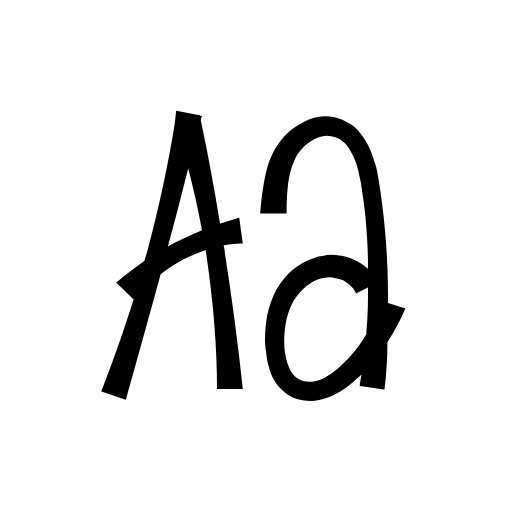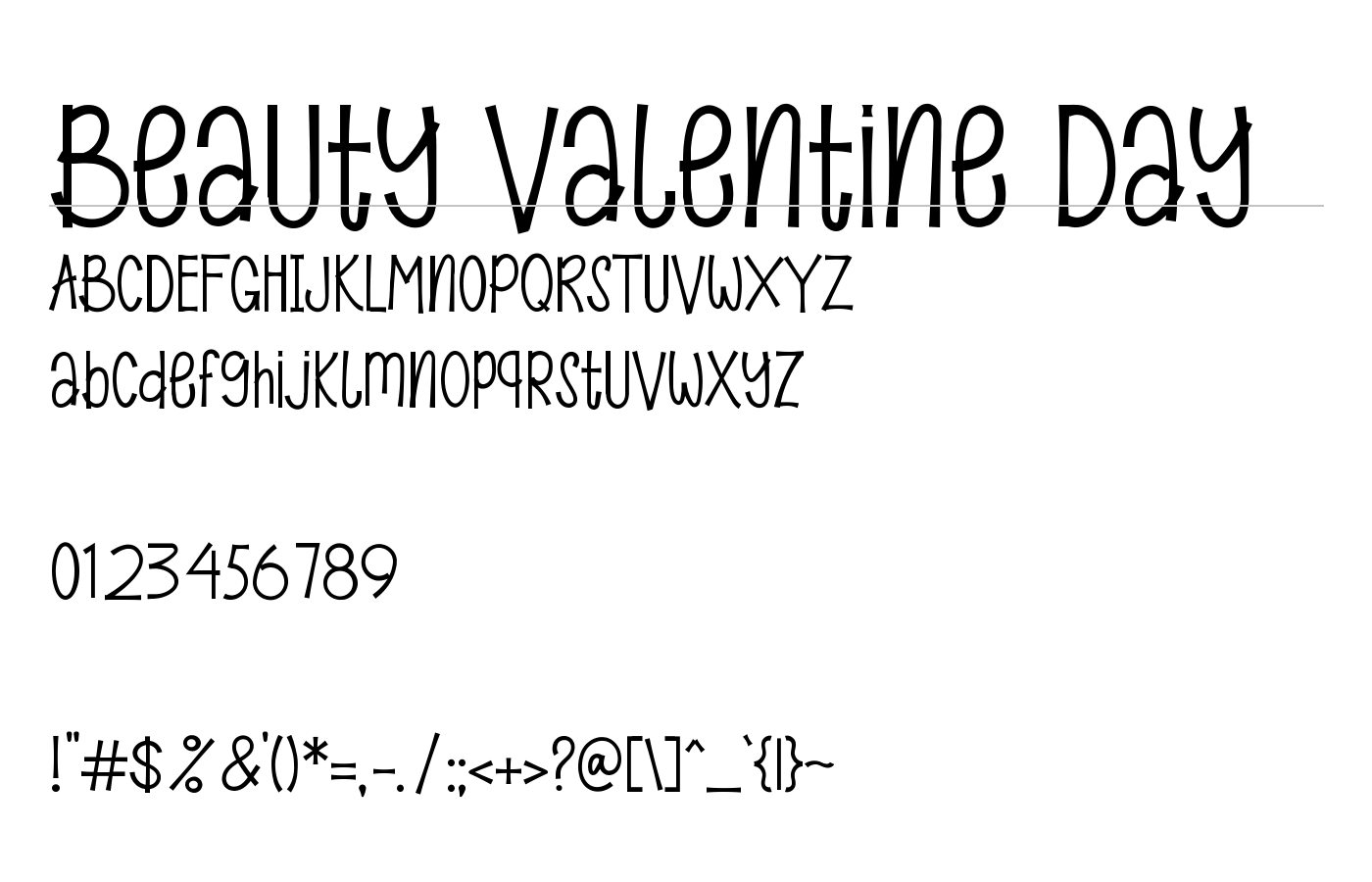
Beauty Valentine Day is a playful, handwritten sans serif font with a tall, narrow structure and whimsical, uneven letterforms that create a charming, casual feel. Its thin strokes and quirky shapes make it perfect for fun, lighthearted designs such as greeting cards, invitations, or children’s projects where a friendly and approachable mood is desired. This font works best in headlines and decorative uses, adding personality without overwhelming the overall design.
Beauty Valentine Day Font
About Beauty Valentine Day Font
| Font family | Beauty Valentine Day Font |
| Designer | andriyanto au |